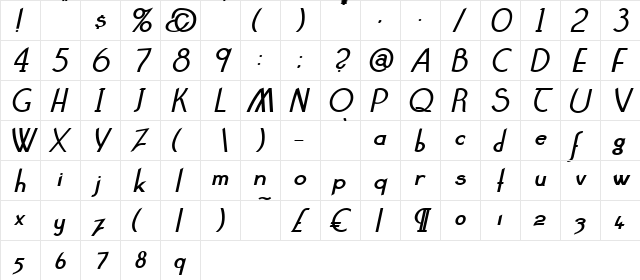
Claritty_BoldItalic Normal
Design Context for Claritty_BoldItalic Typeface
Claritty_BoldItalic is a composed and adaptable typeface that performs quietly and consistently across a wide range of design contexts. Its italic angle brings a sense of urgency and motion to the letterforms. Its bold stroke weight gives it real presence on the page.
Pro Tip: Use Claritty_BoldItalic for emphasis, pull quotes, and subheadings where its slanted energy can add rhythm to the layout.